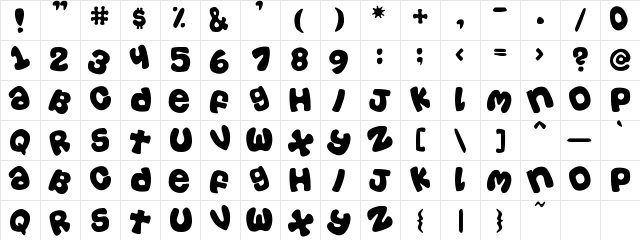
Casual Tossed Regular Font Preview
Casual Tossed Regular
Design Context for Casual Tossed Typeface
Casual Tossed is a composed and adaptable typeface that performs quietly and consistently across a wide range of design contexts.